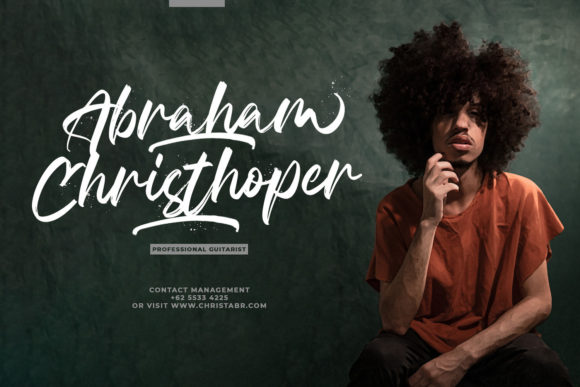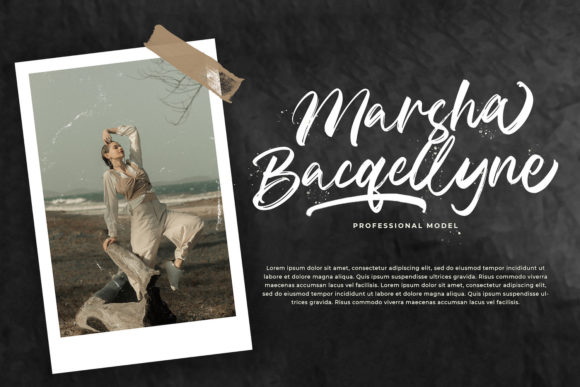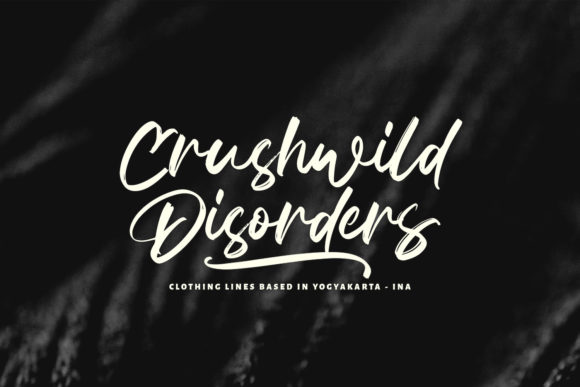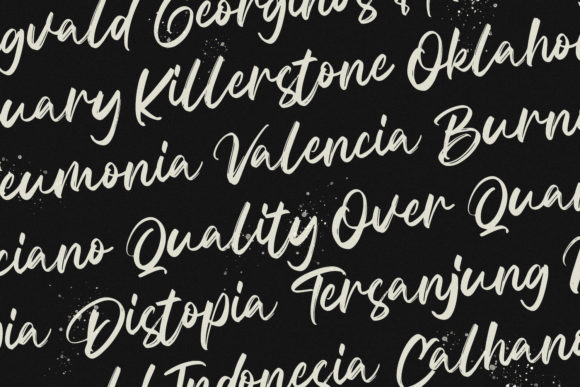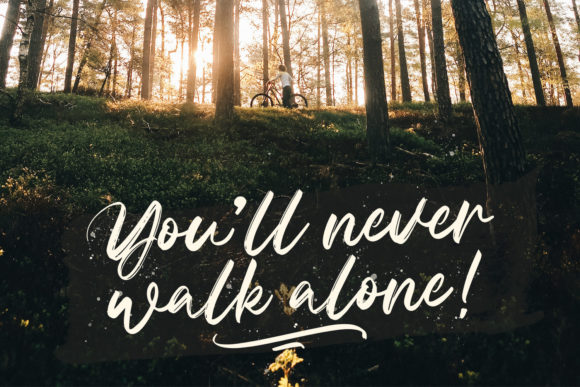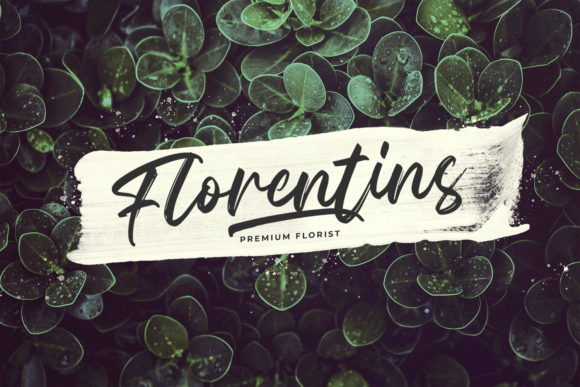
Introducing Celline Fram Font: A Timeless Handwritten Masterpiece
Are you a designer or crafter looking for a font that can add a touch of elegance and sophistication to your creative projects? Look no further than Celline Fram Font, a lovely and timeless handwritten font that is sure to make your designs come alive. In this article, we’ll take a closer look at the features and benefits of Celline Fram Font, and explore how it can be used to create eye-catching logos, branding, and quotes.
The Unique Charm of Celline Fram Font
Celline Fram Font is a beautifully crafted handwritten font that boasts a unique and distinctive style. Every letter has a special touch that sets it apart from other fonts, making it perfect for designers and crafters who want to add a personal touch to their work. The font’s elegant and flowing lines give it a timeless quality that will never go out of style, making it an excellent choice for a wide range of design projects.
Celline Fram Font is an excellent choice for creating eye-catching logos, branding, and quotes. Its unique and beautiful style makes it perfect for adding a touch of elegance and sophistication to any design project. Whether you’re creating a logo for a new business, designing a brand identity, or crafting a quote for social media, Celline Fram Font is sure to make your design stand out.
Key Features of Celline Fram Font
- Timeless handwritten style: Celline Fram Font features a beautiful, handwritten style that is both elegant and timeless.
- Unique lettering: Every letter in Celline Fram Font has a unique and special touch that sets it apart from other fonts.
- Elegant and flowing lines: The font’s elegant and flowing lines give it a sophisticated and refined look that is perfect for a wide range of design projects.
- Perfect for logos, branding, and quotes: Celline Fram Font is an excellent choice for creating eye-catching logos, branding, and quotes that are sure to grab attention.
How to Use Celline Fram Font in Your Design Projects
Using Celline Fram Font in your design projects is easy. Here are a few tips to get you started:
- Pair it with other fonts: Celline Fram Font pairs well with other fonts, making it easy to create a unique and visually appealing design.
- Experiment with colors: The font’s elegant style looks great in a variety of colors, so don’t be afraid to experiment and find the perfect color for your design.
- Use it for headings and titles: Celline Fram Font is perfect for headings and titles, where its elegant style can really shine.
Why Designers and Crafters Love Celline Fram Font
Designers and crafters love Celline Fram Font for a variety of reasons. Here are a few:
- Unique style: Celline Fram Font has a unique and distinctive style that sets it apart from other fonts.
- Elegant and sophisticated: The font’s elegant and sophisticated style makes it perfect for a wide range of design projects.
- Easy to use: Celline Fram Font is easy to use and pairs well with other fonts, making it a great choice for designers and crafters of all skill levels.
In conclusion, Celline Fram Font is a timeless handwritten font that is perfect for designers and crafters looking to add a touch of elegance and sophistication to their creative projects. Its unique and beautiful style makes it an excellent choice for creating eye-catching logos, branding, and quotes that are sure to grab attention. With its elegant and flowing lines, unique lettering, and ease of use, Celline Fram Font is a must-have font for any designer or crafter looking to take their designs to the next level.